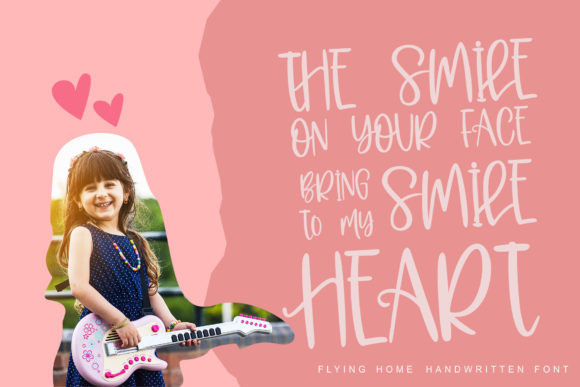
Flying Home Font
Flying Home embodies fun, quirkiness and authenticity. This handwritten font will turn any creative idea into a true standout. Its casual
charm makes it appear wonderfully down-to-earth, readable and, ultimately, incredibly versatile.